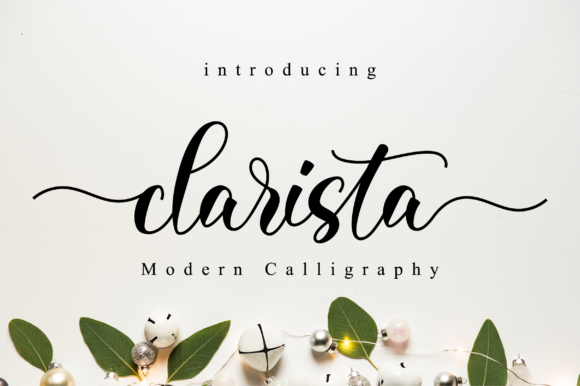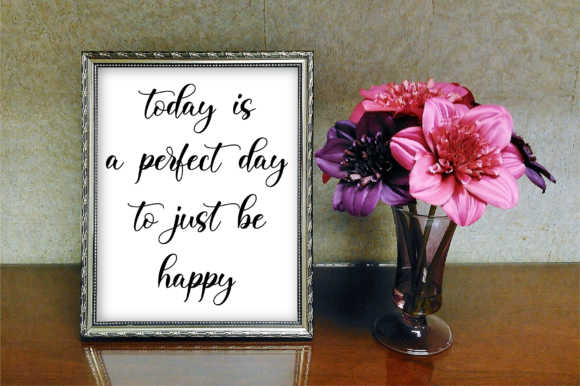
Clarista Font
Clarista Script Font
Clarista is a stunning script that will turn any design project into an authentic piece of art.
Clarista Script Font